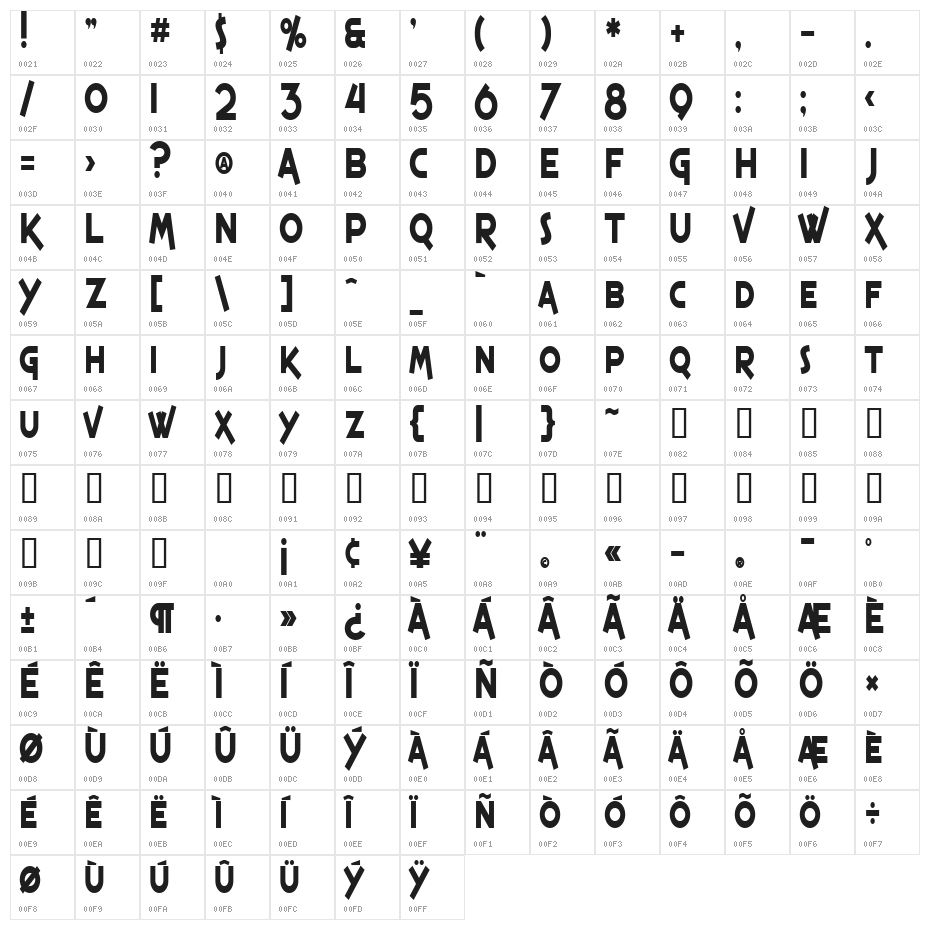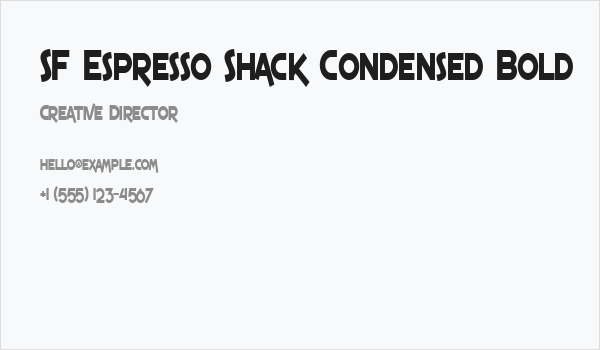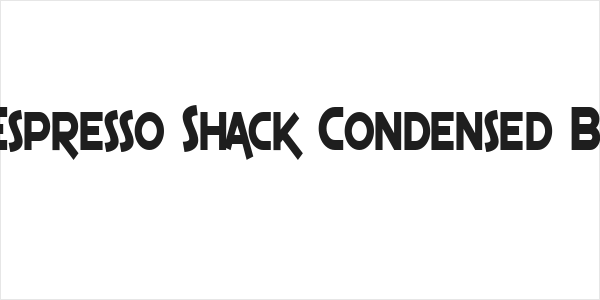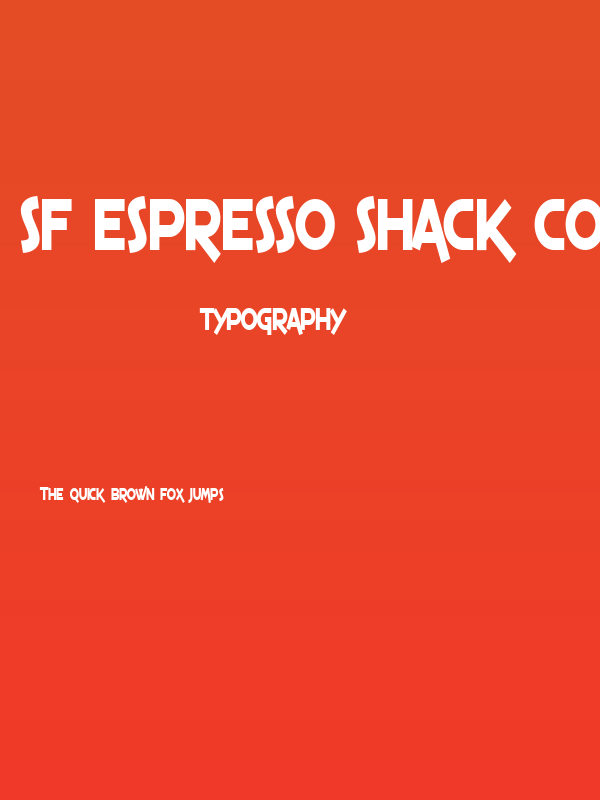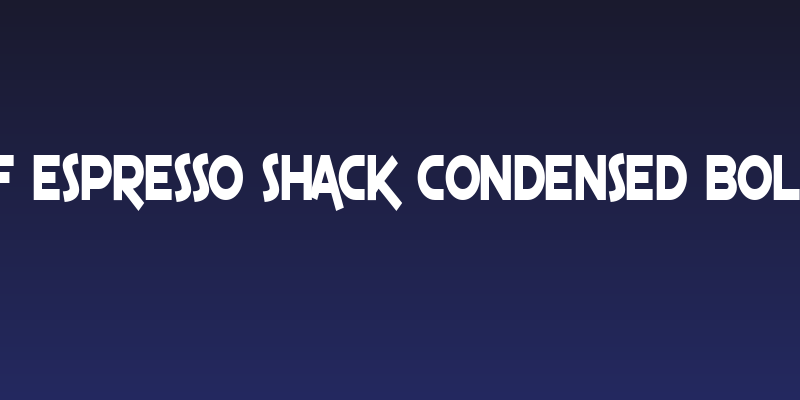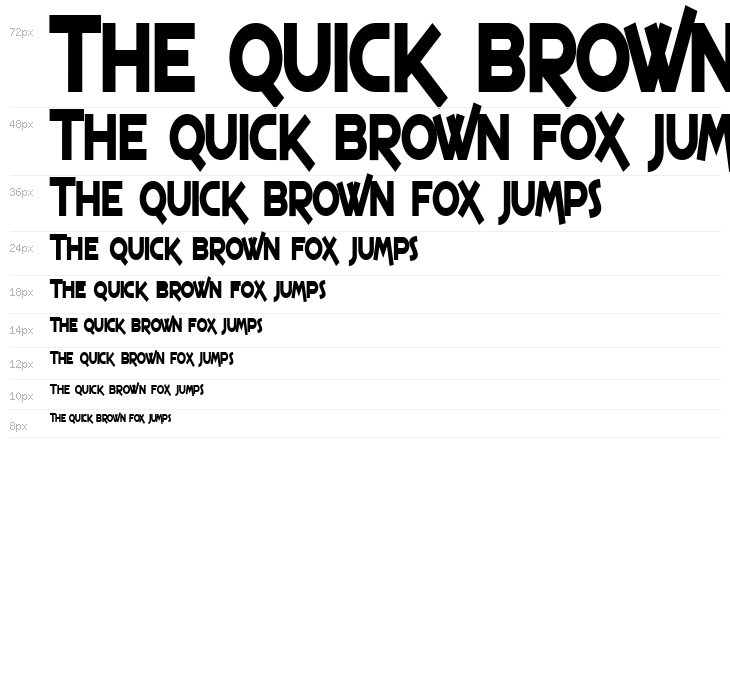
SF Espresso Shack Condensed Bold Font
SF Espresso Shack Condensed Bold Description
This font features a bold, condensed style with a modern and geometric aesthetic. The characters are crafted with sharp angles and clean lines, giving it a strong and assertive presence. The uppercase letters are particularly striking, with a uniform height that enhances readability. The numerals and special characters maintain the same boldness, ensuring consistency across all text. This font's design is both functional and visually appealing, making it suitable for a variety of applications where impact and clarity are essential.
Proposed ProjectsIdeal for branding, posters, headlines, and any design requiring a strong visual impact.